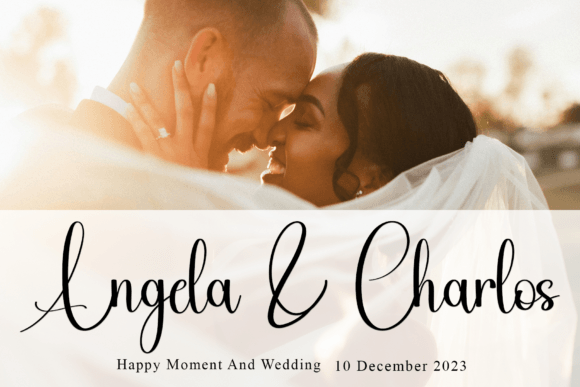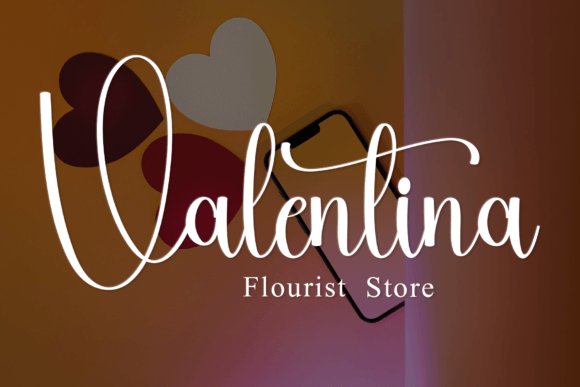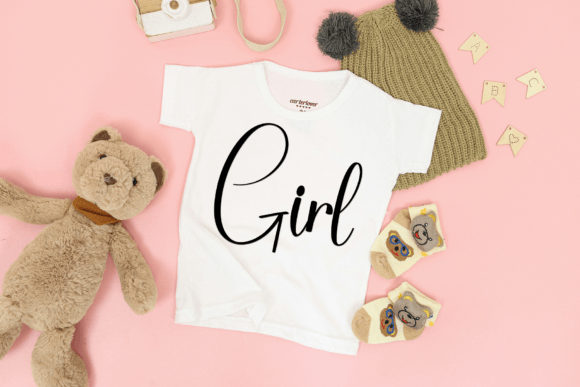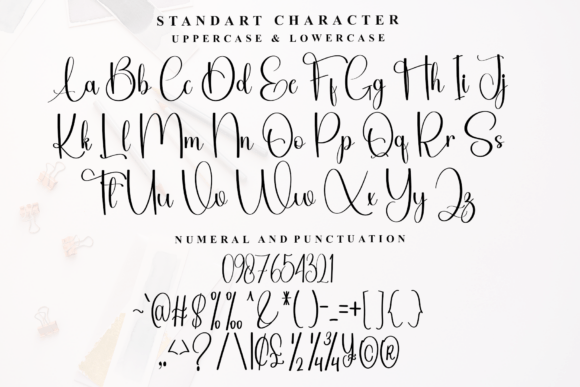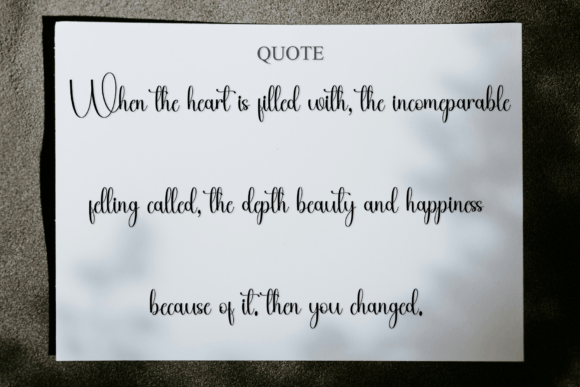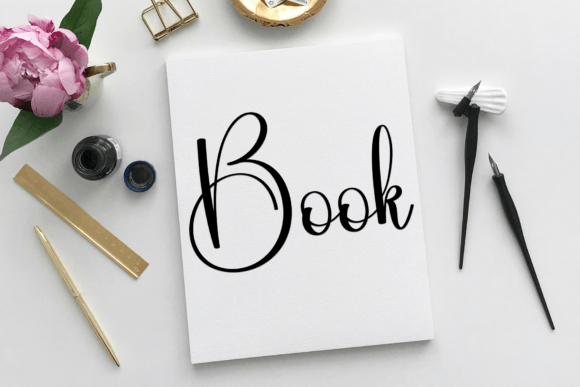
Discover the Charm of Brighton Font: A Handwritten Delight
Are you tired of using the same old fonts for your creative projects? Look no further than Brighton Font, a charming handwritten font that adds a personal touch to any design. With its natural, flowing handwriting style, playful curves, and soft edges, Brighton Font is perfect for notes, invitations, and a wide range of creative endeavors.
Handwritten fonts have a unique ability to add a touch of personality and warmth to any design. They evoke a sense of nostalgia and humanize digital content, making it more relatable and engaging. Brighton Font takes this to the next level with its distinctive, cursive style that mimics natural handwriting.
What Makes Brighton Font Special?
So, what sets Brighton Font apart from other handwritten fonts? Here are a few key features that make it a standout:
- Natural, flowing handwriting style: Brighton Font has a relaxed, organic feel that makes it perfect for creating a sense of warmth and approachability.
- Playful curves and soft edges: The font’s smooth, rounded curves and gentle edges give it a soft, friendly feel that’s hard to resist.
- Perfect for creative projects: Whether you’re designing invitations, greeting cards, or social media graphics, Brighton Font adds a touch of personality and whimsy to any design.
Using Brighton Font in Your Designs
Brighton Font is incredibly versatile and can be used in a wide range of creative projects. Here are a few ideas to get you started:
- Invitations and greeting cards: Add a personal touch to your invitations and greeting cards with Brighton Font’s charming, handwritten style.
- Social media graphics: Use Brighton Font to add a touch of personality to your social media graphics, such as quote graphics, promotions, and announcements.
- Notes and journals: Create beautiful, handwritten notes and journals with Brighton Font’s natural, flowing style.
- Crafting and DIY projects: Brighton Font is perfect for crafters and DIY enthusiasts who want to add a personal touch to their projects, such as scrapbooking, card making, and more.
Tips for Using Brighton Font Effectively
Here are a few tips for using Brighton Font effectively in your designs:
- Use it sparingly: Brighton Font is a statement font, so use it sparingly to add emphasis and personality to your designs.
- Pair it with complementary fonts: Pair Brighton Font with clean, simple fonts to create visual interest and contrast.
- Experiment with colors and textures: Brighton Font looks great in a variety of colors and textures, so don’t be afraid to experiment and find the perfect combination for your design.
Brighton Font is a charming handwritten font that adds a personal touch to any design. With its natural, flowing handwriting style, playful curves, and soft edges, it’s perfect for notes, invitations, and a wide range of creative projects. Whether you’re a designer, crafter, or DIY enthusiast, Brighton Font is a must-have font that will take your designs to the next level.